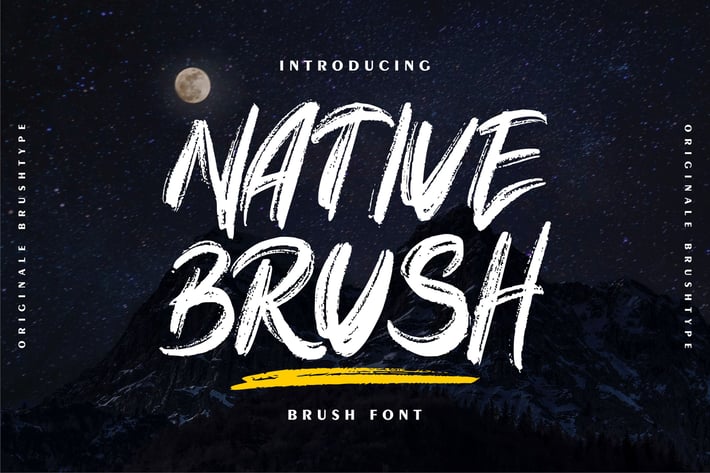
Native Brush | Brush Font
Native Brush | Brush Font with a calligraphy style, So beautiful on invitation like greeting cards, branding materials, business cards, quotes, posters, and more!